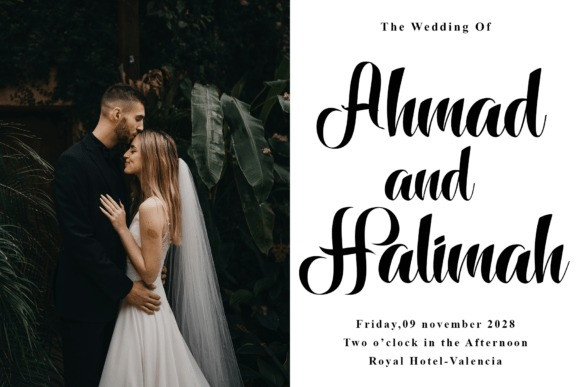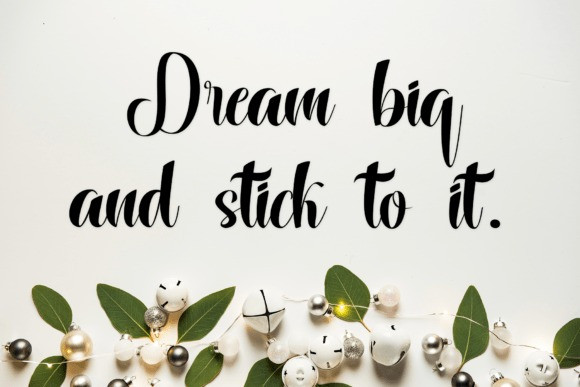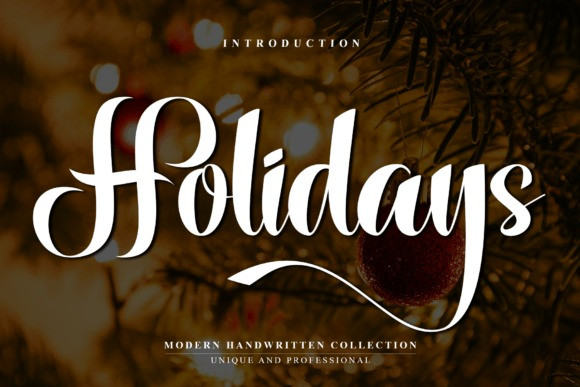
Holidays Script Font
Holidays Script Font is a modern script that radiates charm and sophistication. Its flowing curves and elegant letterforms feature tall, expressive ascenders, generous loops, and smooth, fluid connections, capturing the essence of celebratory handwriting with a refined twist. The high contrast between its thick downstrokes and thin upstrokes enhances its visual rhythm, making it both decorative and legible.